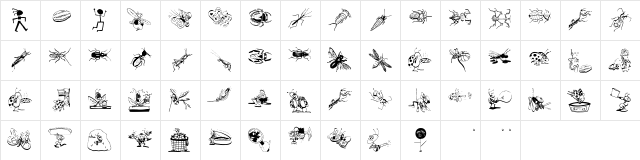
OurLittleFriends Regular
Design Context for OurLittleFriends Typeface
OurLittleFriends is a composed and adaptable typeface that performs quietly and consistently across a wide range of design contexts.